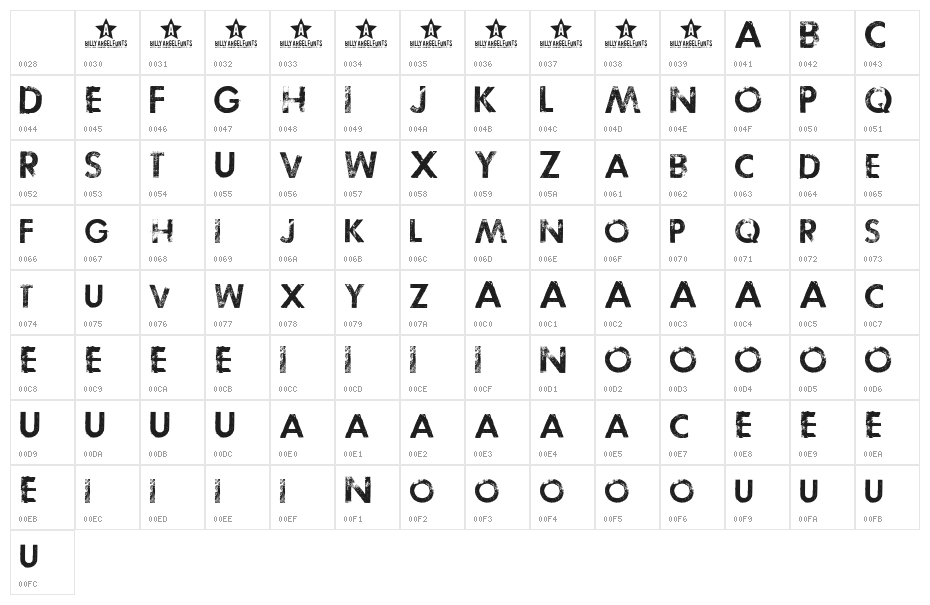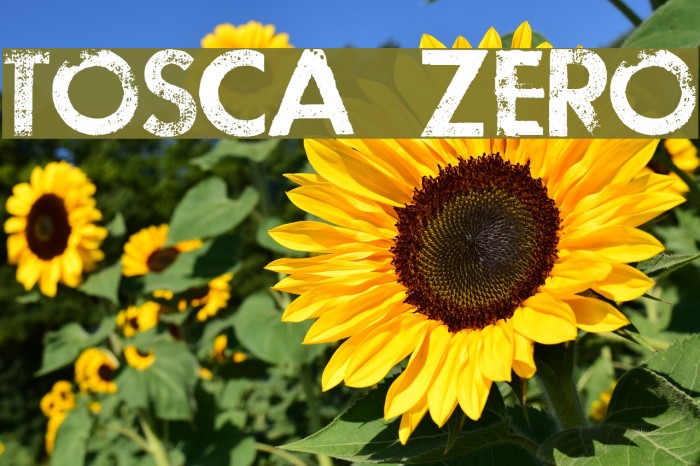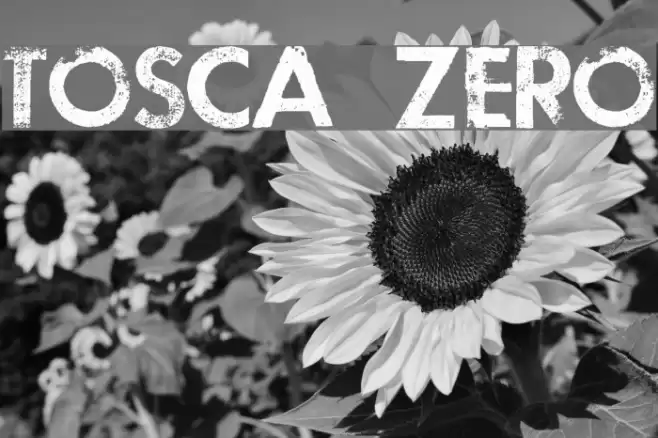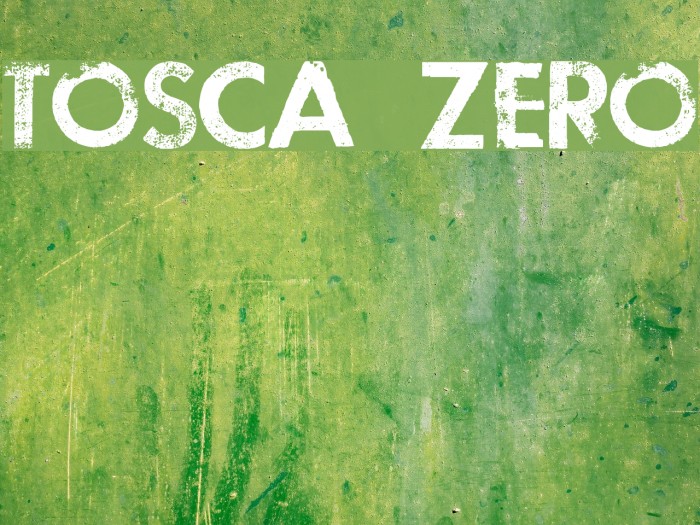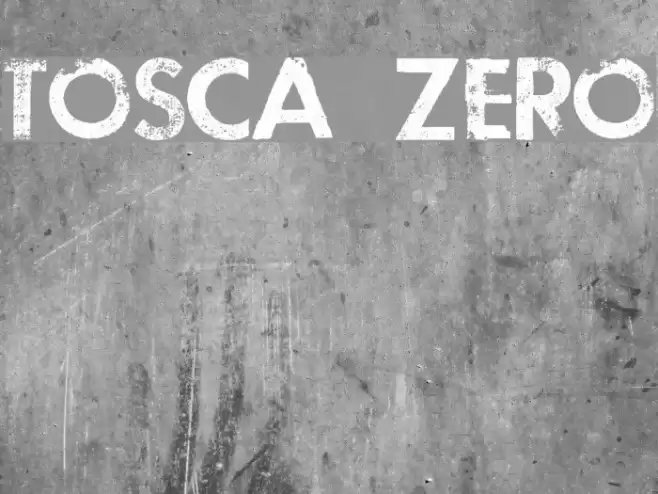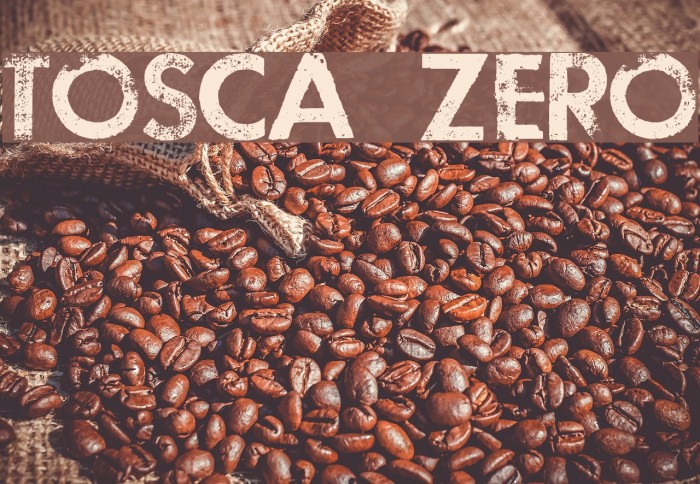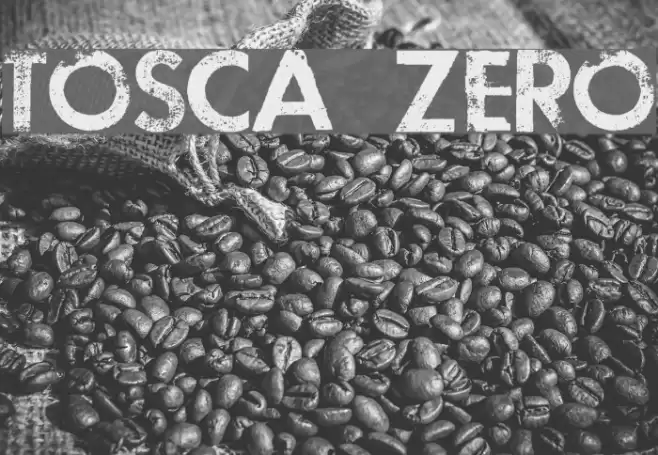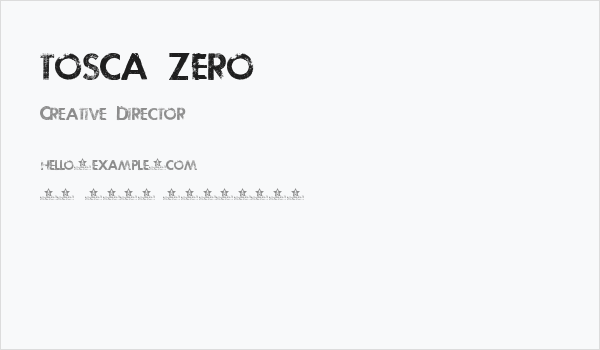
TOSCA ZERO Font
TOSCA ZERO Description
This font features a bold, distressed style that gives it a rugged and worn appearance. The uppercase letters are uniformly bold with a textured, grunge effect that adds character and depth. The design is consistent across all characters, maintaining a cohesive look that is both striking and impactful. The distressed elements vary in intensity, providing a dynamic and visually interesting texture. This font is ideal for projects that require a bold statement or a vintage, industrial feel. Its unique style makes it suitable for creative designs where a strong, eye-catching typeface is needed.
| Proposed Projects | Ideal for posters, album covers, branding, and any design needing a bold, vintage look. |